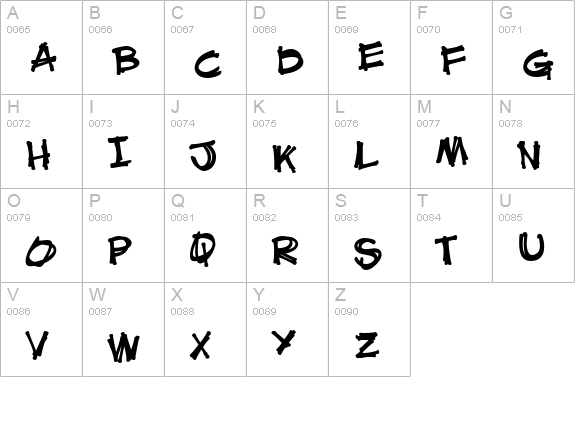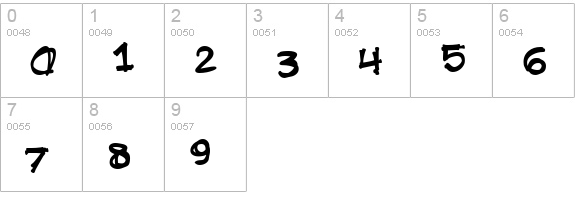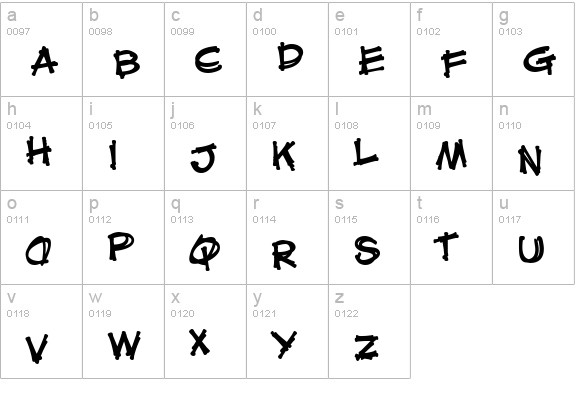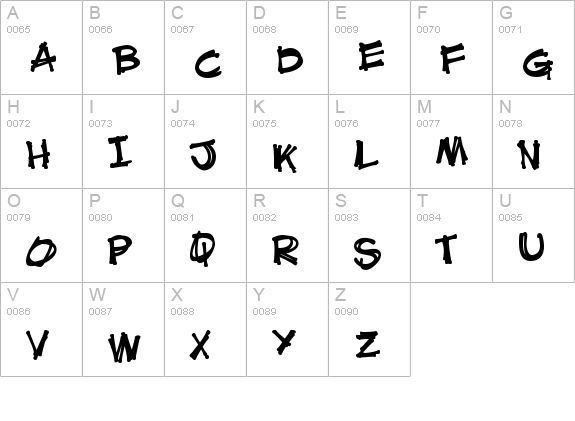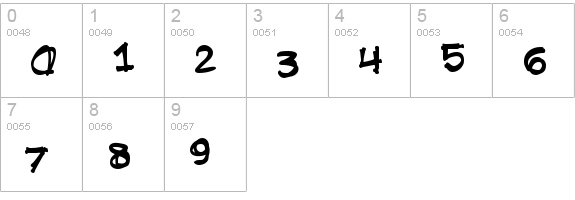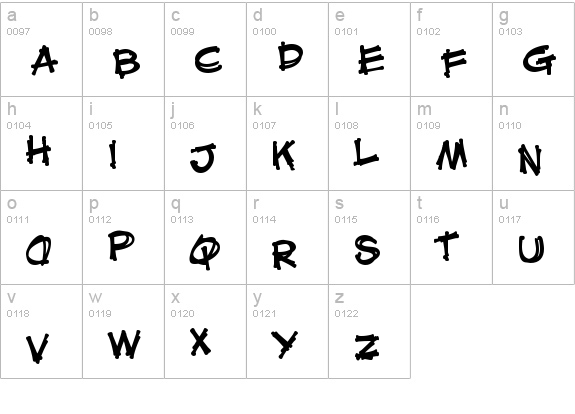
Mouth Breather BB font is a quirky and playful typeface that adds a unique touch to any design project. With its bold strokes and fun, irregular shapes, this font is perfect for creating eye-catching headlines, posters, and more. The playful nature of Mouth Breather BB font makes it ideal for adding a touch of whimsy to your designs. Best of all, Mouth Breather BB font is completely free to download at FontsMarket.com. Whether you're a seasoned designer looking to add a fresh font to your collection or a newbie looking for an easy way to enhance your projects, Mouth Breather BB font is a fantastic choice. Download it today and let your creativity flow with this fun and free font!